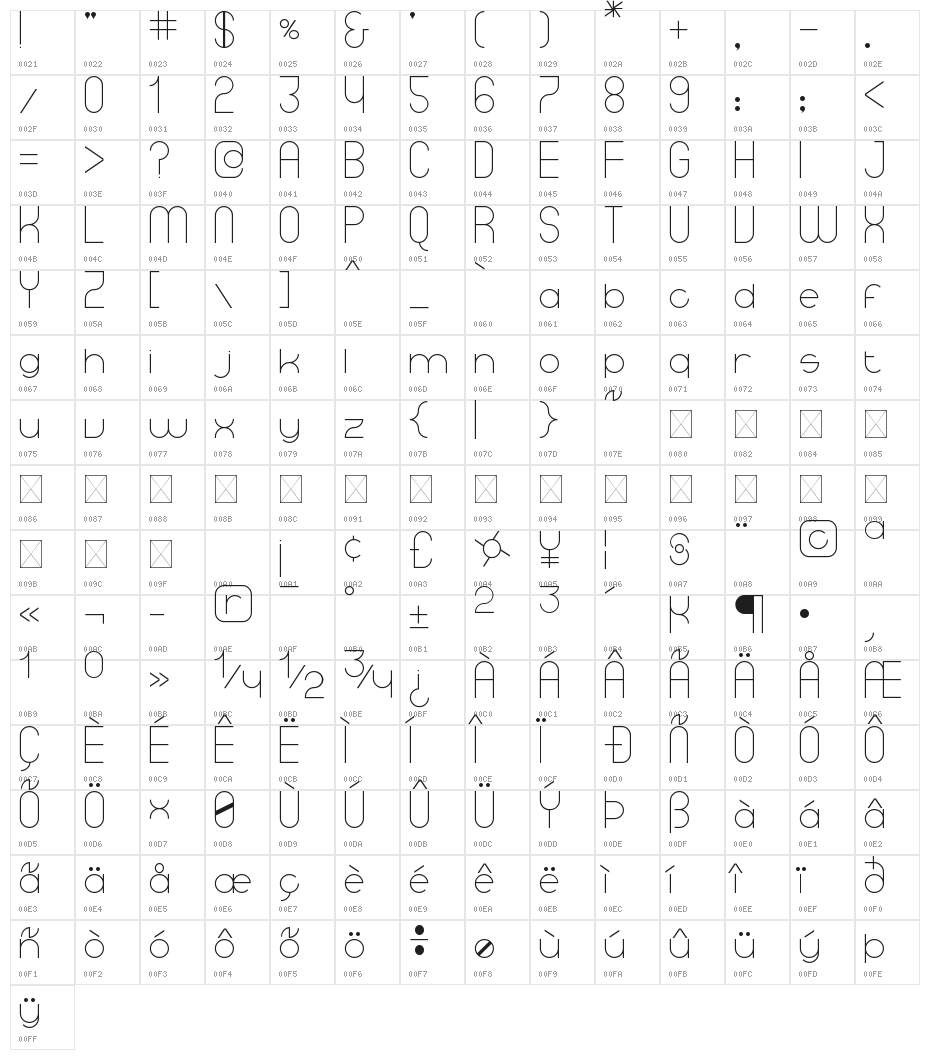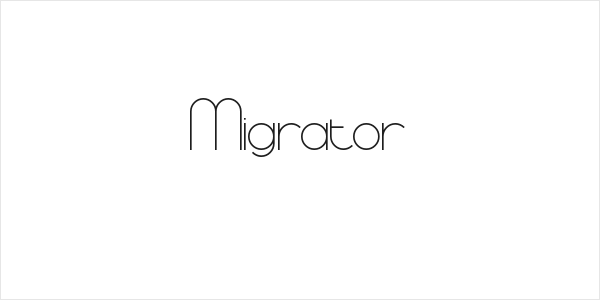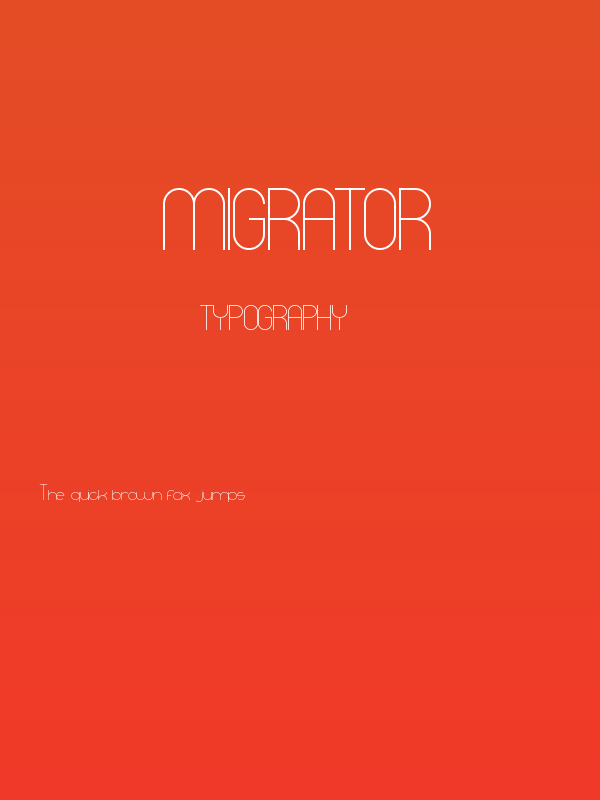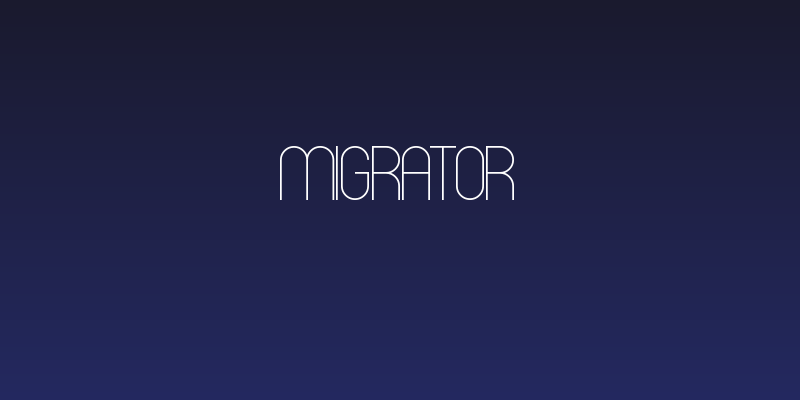
Migrator Font
Migrator Description
This font features a sleek, modern design with a geometric and minimalist aesthetic. The characters are composed of thin, uniform lines that create a sense of elegance and sophistication. The uppercase and lowercase letters maintain a consistent height, contributing to a clean and orderly appearance. The numerals and special characters are designed with the same attention to detail, ensuring a cohesive look across all elements. The font's simplicity and clarity make it highly versatile, suitable for a variety of design projects that require a contemporary and stylish touch.